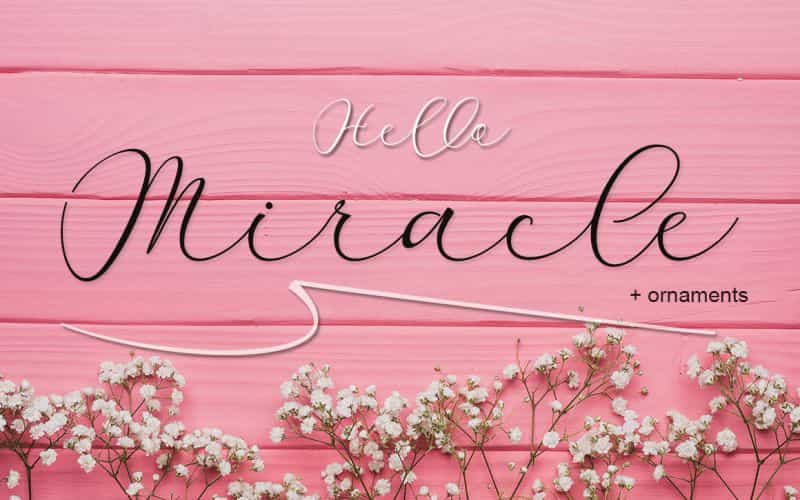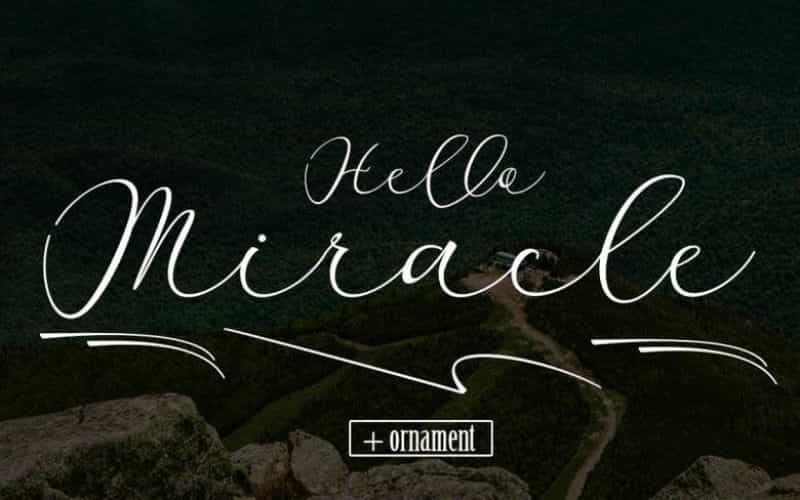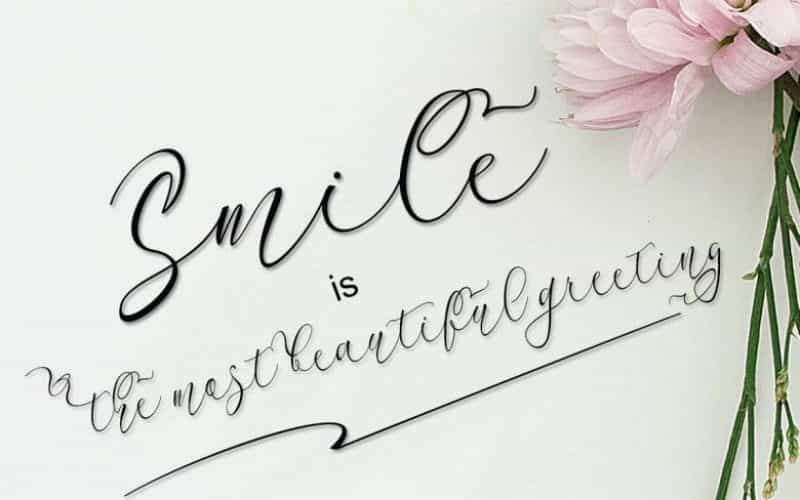
Miracle font, new varies serif display typefaces, classic decorative copperplate script with connecting, having many Opentype features like ligatures, Stylistic Alternates. Ideal for Labels and vintage style of the signatural. It’s a display typeface and they have many Opentype features like ligatures, Stylistic Alternates.